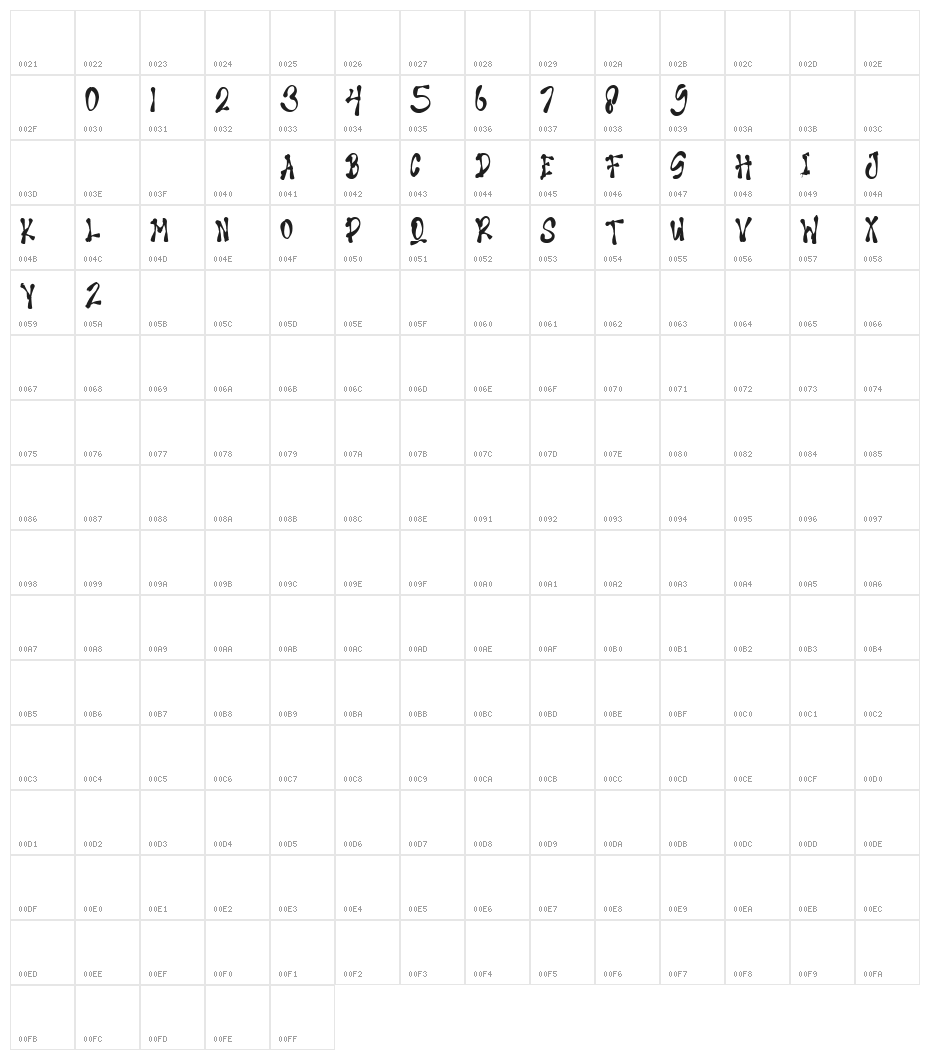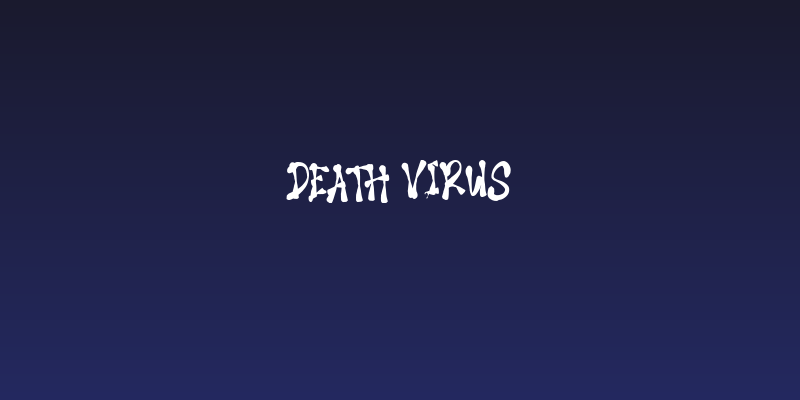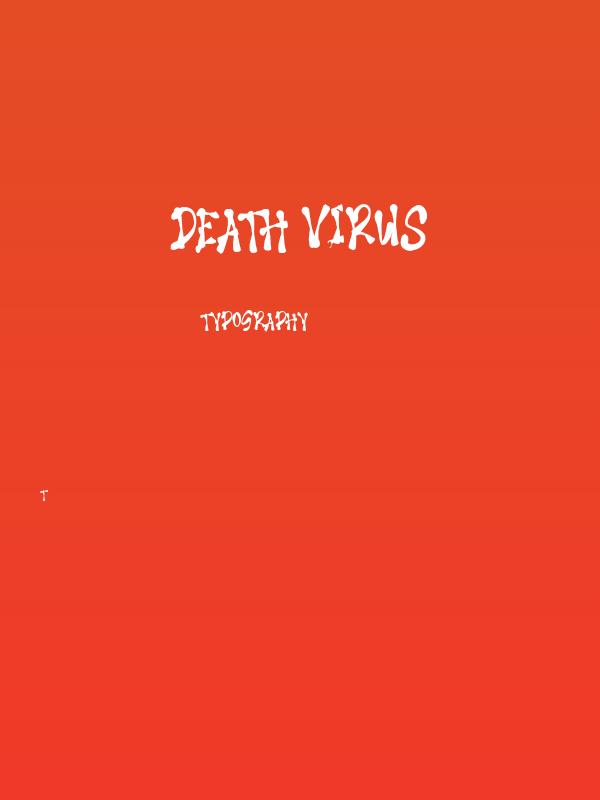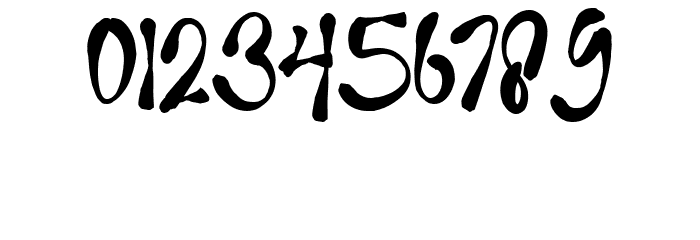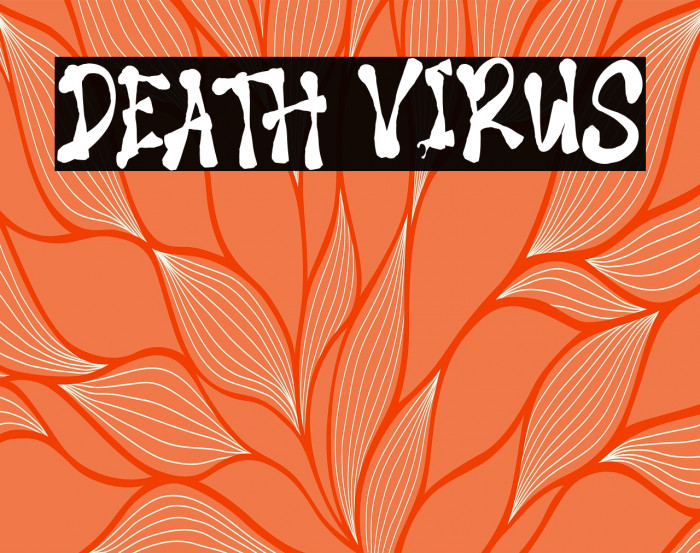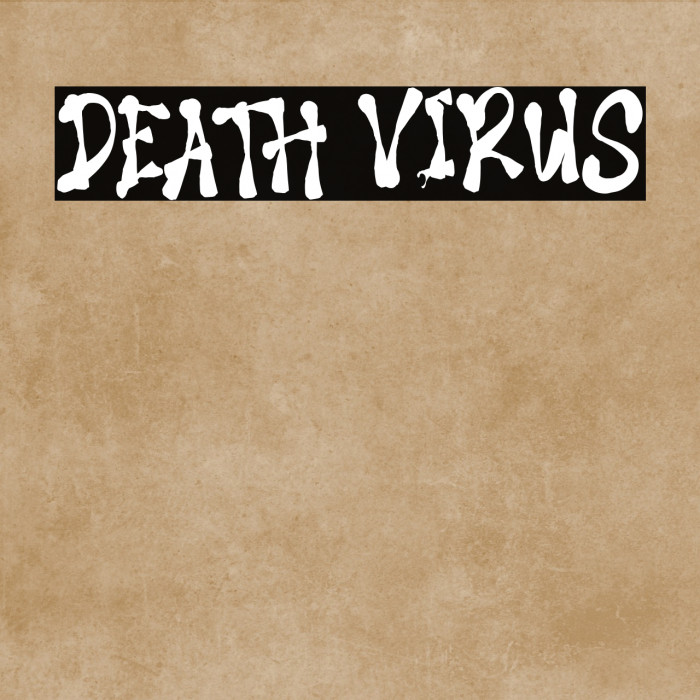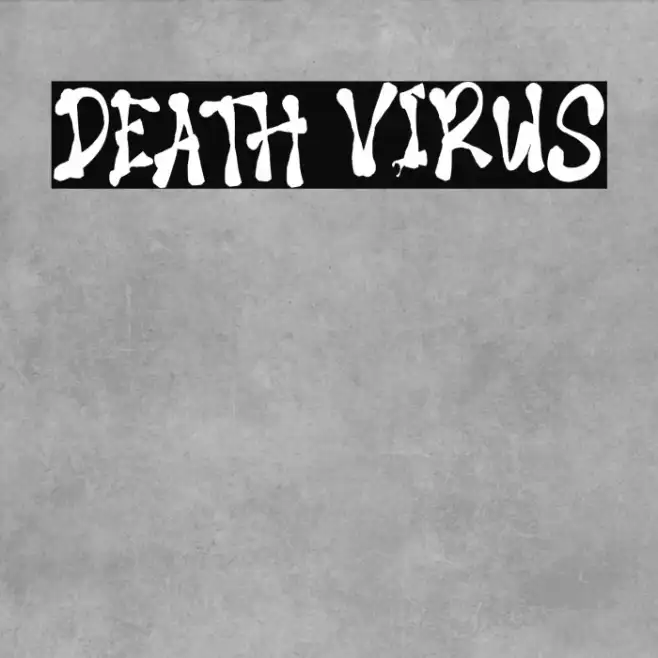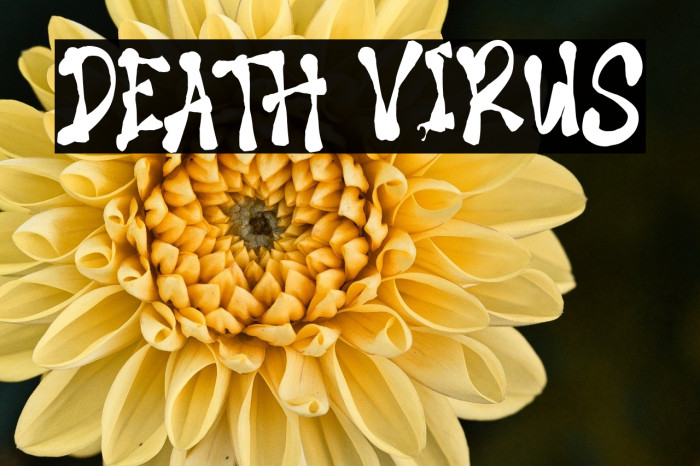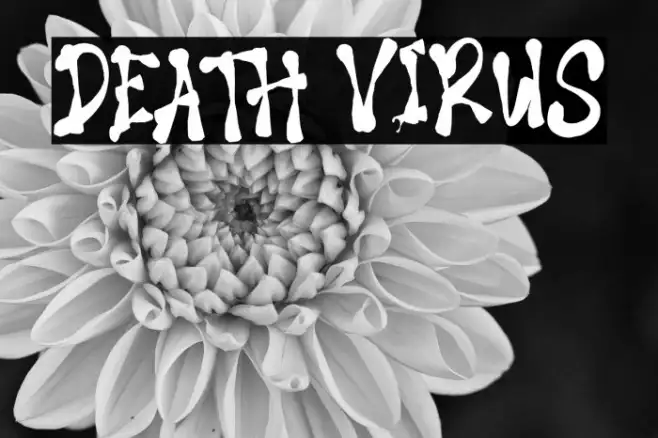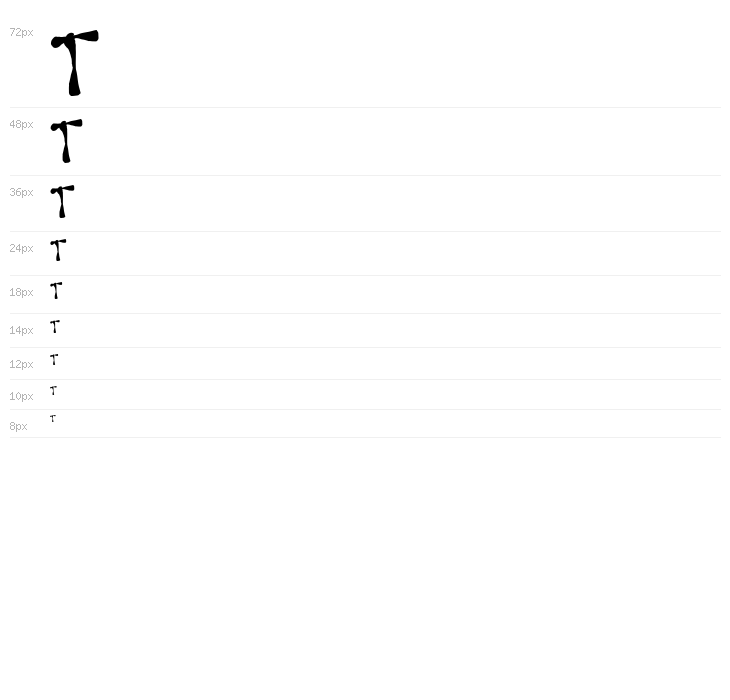
DEATH VIRUS Font
DEATH VIRUS Description
This font features a bold and expressive style, characterized by its thick, irregular strokes and a hand-drawn appearance. The letters have a playful yet slightly chaotic feel, with varying heights and widths that give it a dynamic and energetic look. The uppercase letters are particularly striking, with exaggerated curves and angles that create a sense of movement. The numbers follow the same aesthetic, maintaining the bold and uneven design. This font is ideal for projects that require a strong visual impact and a touch of personality.
| Proposed Projects | Perfect for posters, album covers, graffiti art, and any creative project needing a bold statement. |